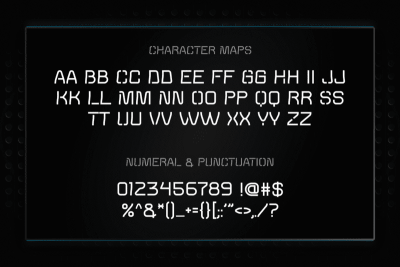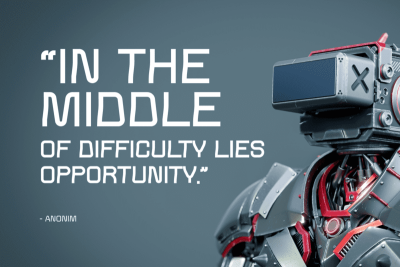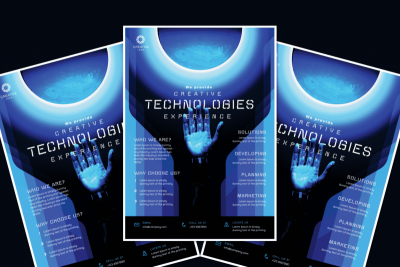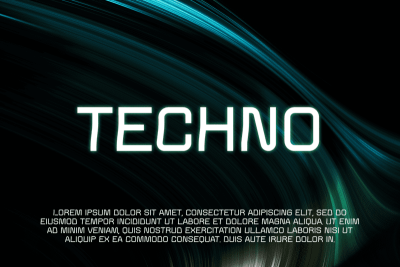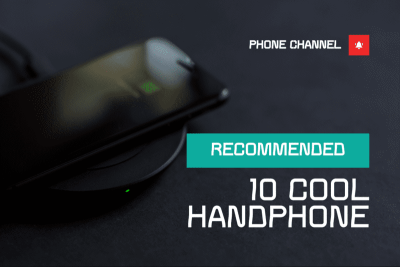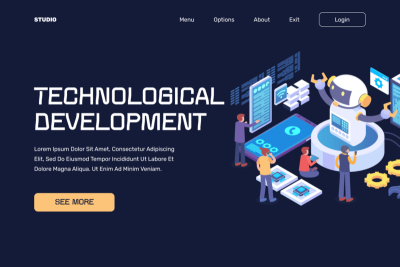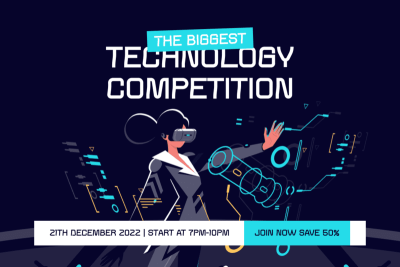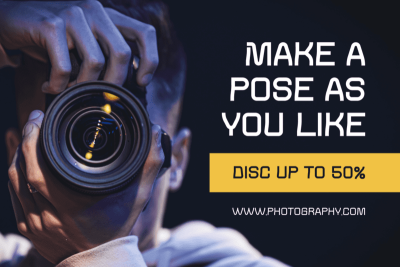
If you need a modern and futuristic typeface, Stencil Font WIGGLING is an excellent choice. This font captures the essence of a digital display, featuring a sleek, high-tech design with a neon glow. It blends a stencil style with rounded edges, creating a bold and eye-catching look. Whether you use it for gaming, sci-fi themes, UI design, or futuristic branding, WIGGLING ensures a strong visual impact that enhances your projectโs appeal.
Moreover, this font replicates digital signage and cyberpunk aesthetics, making it perfect for high-energy projects. Its geometric yet slightly distorted letterforms create a high-tech and dynamic look. Additionally, its stencil-like cuts add an industrial and mechanical feel, making it ideal for those seeking a powerful and stylish typeface. Because of its futuristic appeal, it works well for projects that require a bold and modern touch.
Not only does WIGGLING offer a sleek digital look, but it also provides excellent legibility. Each letter is carefully crafted to maintain clarity while preserving a futuristic edge. As a result, it is highly versatile and works well for logos, posters, website headers, and motion graphics. Furthermore, whether you use it for titles, branding, or promotional content, WIGGLING ensures your text stands out and captures attention instantly.
Who Should Use Stencil Font WIGGLING?
1. Game Developers & UI Designers
WIGGLING is perfect for game developers and UI designers aiming for an immersive feel. Since its futuristic style fits well with sci-fi games, cyberpunk themes, and tech-based interfaces, it enhances titles, in-game menus, and HUD elements with a sleek and digital touch. Additionally, its neon-inspired design adds a unique flair that makes gaming visuals more engaging. Because of this, it is an excellent choice for developers who want to create a strong futuristic presence in their designs.
2. Sci-Fi & Tech Enthusiasts
If your project involves science fiction, AI, or futuristic themes, this font is an excellent choice. It creates an authentic cyberpunk and high-tech ambiance, making it great for book covers, movie posters, and digital artwork. Moreover, its stencil-style cuts give it a mechanical and futuristic look, which perfectly matches tech-based narratives. As a result, it is a top choice for designers working on science fiction-themed content.
3. Branding & Marketing Professionals
For brands wanting a futuristic and innovative identity, WIGGLINGโs style provides a strong impact. It works well for tech startups, esports branding, and advertisements, adding a modern and cutting-edge feel. Additionally, because of its sleek digital look, it is ideal for companies that want to stand out in technology-driven markets. Furthermore, its bold and industrial aesthetic helps reinforce a strong and memorable brand identity.
4. Content Creators & Motion Designers
If you work on YouTube intros, Twitch overlays, or motion graphics, WIGGLING makes a strong impression. Its bold, glowing effect fits tech-based content, animations, and title sequences perfectly. Furthermore, its high-energy appearance ensures that viewers remain engaged and excited. Because of its modern and digital style, content creators can effectively enhance their visuals and attract a larger audience.
5. Event & Poster Designers
If you’re designing event posters, flyers, or invitations, this fontโs tech-inspired style ensures an eye-catching result. It suits music events, DJ parties, electronic festivals, and gaming conventions perfectly. Additionally, its futuristic glow effect helps create an electrifying atmosphere that matches high-energy events. Because of this, designers looking for a bold and energetic typeface will find WIGGLING an excellent choice.
With Stencil Font WIGGLING, youโre choosing a bold and futuristic statement. Ultimately, itโs the perfect font for projects needing modernity, energy, and a cutting-edge look while maintaining style and readability. Furthermore, its versatility and impact make it a must-have for designers who want to create a memorable and engaging visual experience.